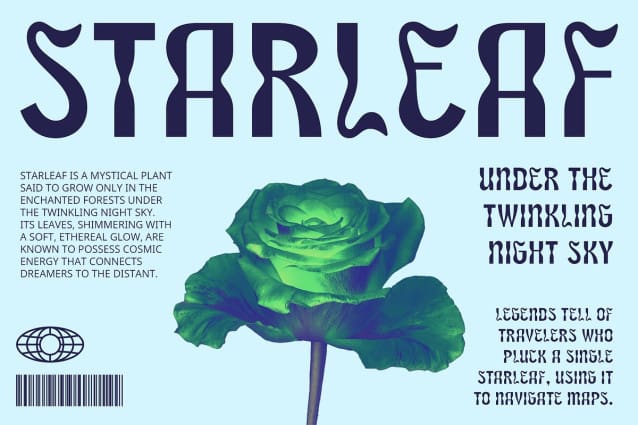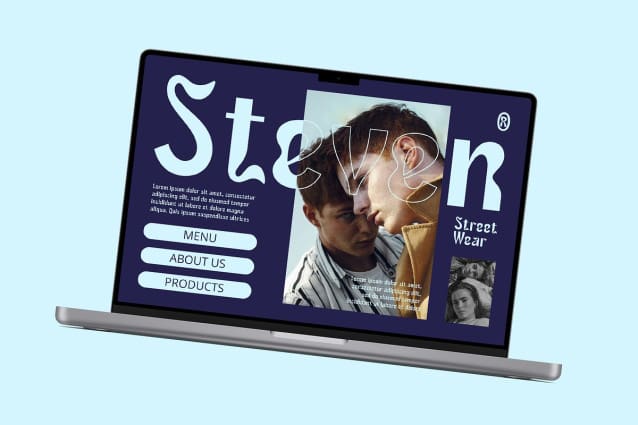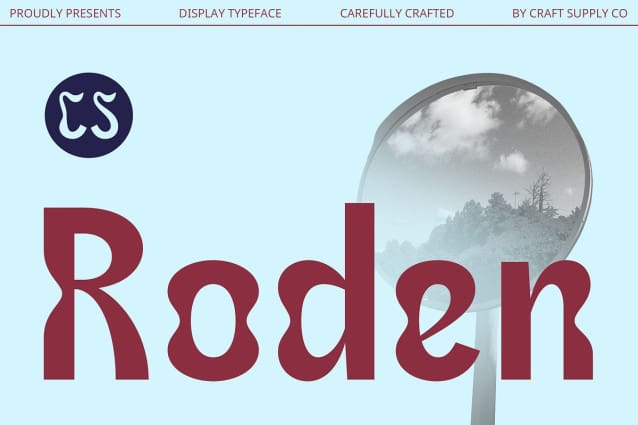
CS Roden Font
CS Roden Font is a modern display sans serif font that combines bold design with trippy, psychedelic shapes. Featuring curving, wavy, and distorted letterforms, this font creates visually striking and imaginative effects. Its psychedelic style, characterized by bright colors and unconventional shapes, delivers a playful and artistic impression that stands out in any context.
Trippy and Artistic Visual Effects Embracing a trippy aesthetic, CS Roden integrates bright hues, whimsical patterns, and unique shapes to produce an engaging and funky visual impact. The font’s design is perfect for capturing the essence of artistic and energetic styles, making it a vibrant choice for a range of creative projects. Its distinctive look ensures that your designs will radiate with character and originality.
Perfect for Music and Creative Promotions CS Roden excels in applications that demand a refreshing and dynamic appearance. Ideal for music posters, creative event promotions, and other eye-catching designs, this font brings a burst of visual energy and standout appeal. Its blend of bold design and psychedelic influence makes it a go-to choice for projects seeking to make a memorable and lively impression.